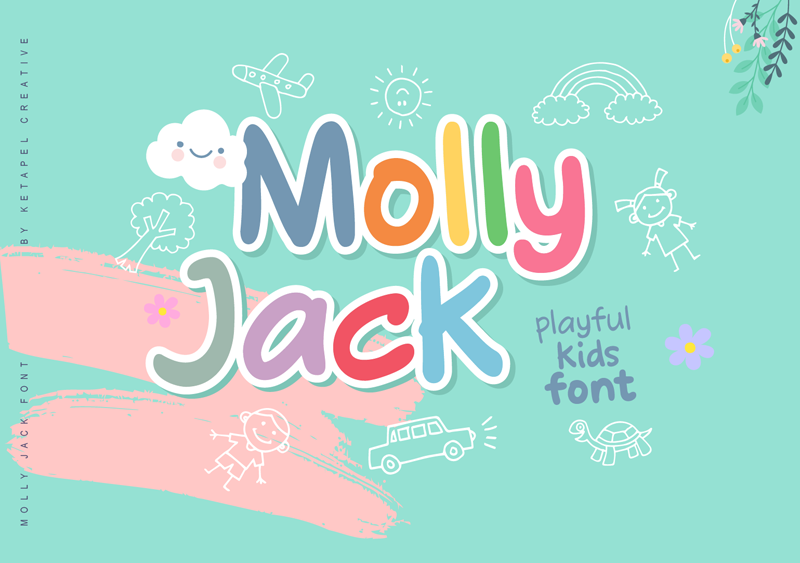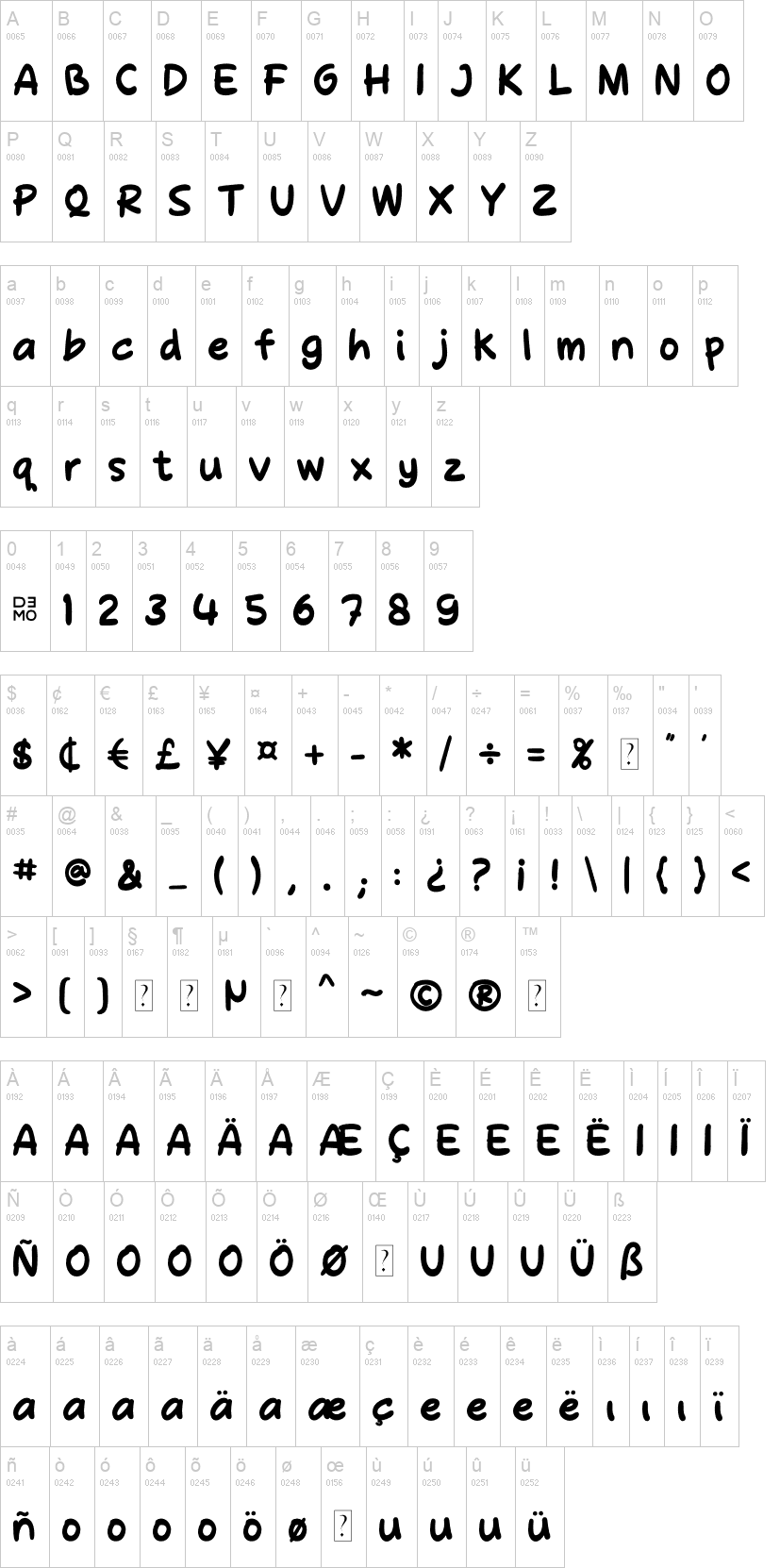
Molly Jack is an awesome, playful, and unique comic font (Thin, Regular, Bold)lots of personality. Fall in love with its playful look & feel! Perfect for branding, logos, label, brochure, childrens apparel, t-shirt, post cards, packaging design, social media, poster, games, stationery, etc.
Includes in uppercase, lowercase, standard numbers & punctuation.